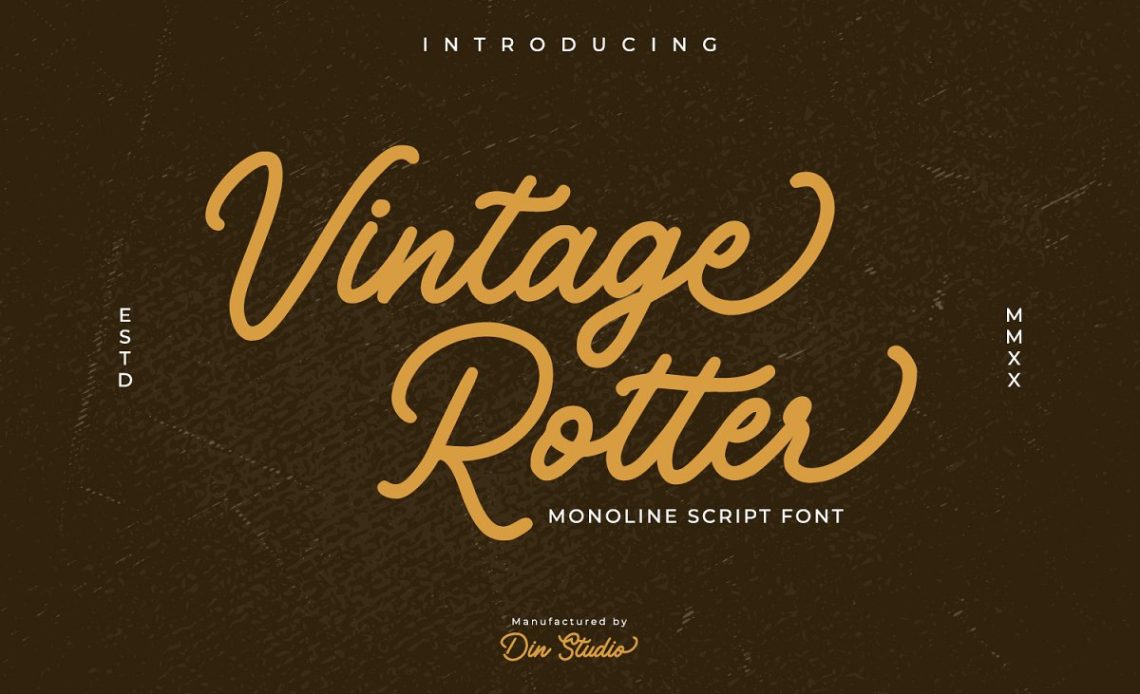
Welcome to the world of Vintage Rotter – Monoline Script Font, the perfect choice for any design projects! Whether you need to create posters, banners, logos, book covers, album covers, quotes, invitations, greeting cards, name cards, headings, printed products, merchandise, or social media content, this font will give your project a unique and beautiful touch that will leave a lasting impression.
Vintage Rotter – Monoline Script Font is the brainchild of Donis Miftahudin, a talented font designer who has poured his heart and soul into creating this stunning script font. Every letter has been crafted with meticulous attention to detail, resulting in a font that is both elegant and playful. The font family belongs to the script category and is widely known as the best font for tattoo script.
What makes Vintage Rotter – Monoline Script Font stand out from other fonts on the market? It's the unique features that come with it. You'll love the alternates, standard ligatures, PUA encoded, multilingual supports, numerals, and punctuations that make it a versatile font for any project. The font preview page on our website showcases more ways to use this font and will surely spark your creativity.